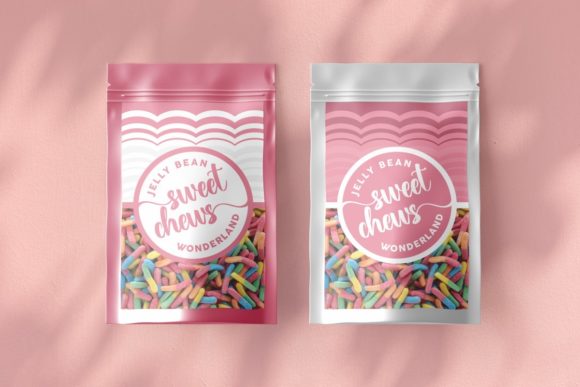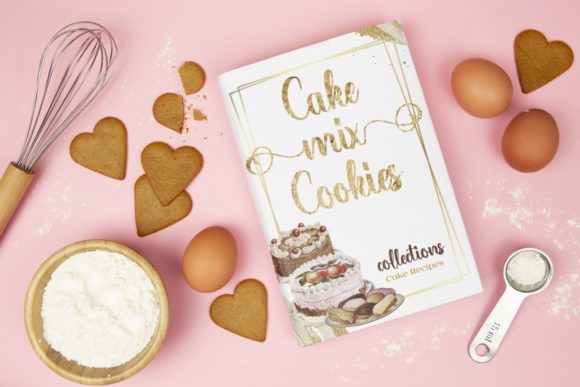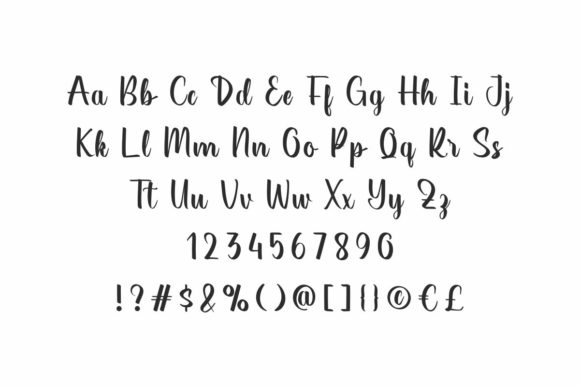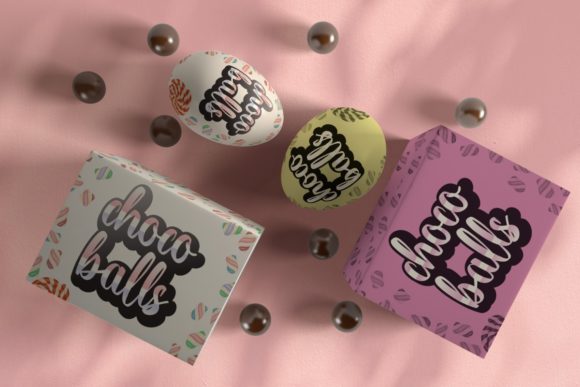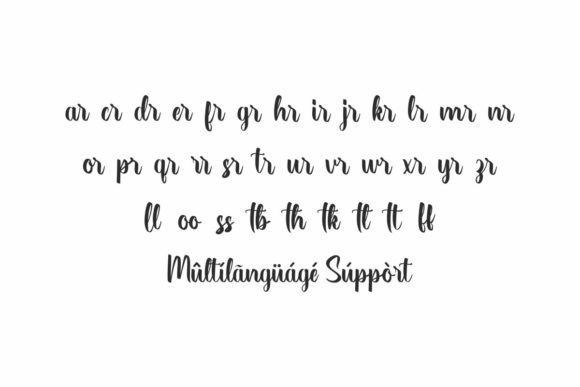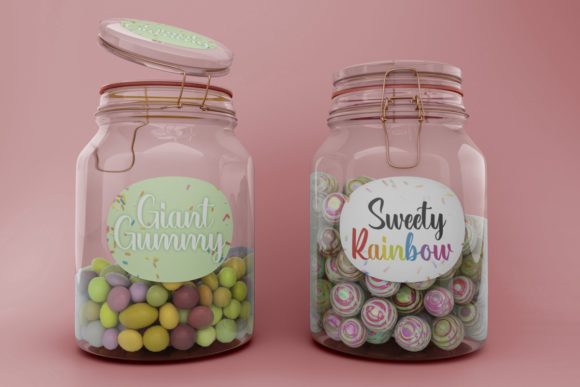
Candy Nougat Font: The Sweetest Addition to Your Design Projects
Are you looking for a font that can add a touch of sweetness and elegance to your design projects? Look no further than the Candy Nougat font! This lovely and well-balanced script font is perfect for a variety of applications, from product packaging and branding projects to magazine covers, social media, and wedding designs.
What Makes Candy Nougat Font So Special?
Candy Nougat font is a beautifully crafted script font that features a unique and elegant design. Its well-balanced letters and smooth curves make it perfect for creating visually appealing text that will capture the attention of your audience. Whether you’re designing a logo, creating a social media post, or working on a wedding invitation, this font is sure to impress.
One of the best things about Candy Nougat font is its versatility. It’s perfect for a wide range of design projects, including:
- Product Packaging: Add a touch of sweetness to your product packaging with Candy Nougat font. Its elegant design and smooth curves make it perfect for labeling products, creating brand identities, and more.
- Branding Projects: Create a lasting impression with Candy Nougat font. Its unique design and well-balanced letters make it perfect for creating logos, business cards, and other branding materials.
- Magazine Covers: Make your magazine cover stand out with Candy Nougat font. Its elegant design and smooth curves make it perfect for creating eye-catching headlines and titles.
- Social Media: Add a touch of elegance to your social media posts with Candy Nougat font. Its unique design and well-balanced letters make it perfect for creating visually appealing text that will capture the attention of your audience.
- Wedding Designs: Make your wedding designs truly special with Candy Nougat font. Its elegant design and smooth curves make it perfect for creating beautiful wedding invitations, programs, and more.
Another great feature of Candy Nougat font is that it’s PUA encoded. This means that you can access all of the glyphs and swashes with ease, giving you even more creative freedom and flexibility. With PUA encoding, you can:
- Access a wide range of glyphs and swashes: With PUA encoding, you can access a wide range of glyphs and swashes, giving you even more creative freedom and flexibility.
- Easily customize your text: PUA encoding makes it easy to customize your text with Candy Nougat font. You can access a wide range of glyphs and swashes, and easily swap them out to create unique and visually appealing text.
Why Designers and Crafters Love Candy Nougat Font
Candy Nougat font has quickly become a favorite among designers and crafters. Here are just a few reasons why:
- Elegant design: Candy Nougat font features an elegant design that’s perfect for creating visually appealing text.
- Versatility: Candy Nougat font is perfect for a wide range of design projects, from product packaging and branding projects to magazine covers, social media, and wedding designs.
- Easy to use: Candy Nougat font is easy to use, even for those who are new to design. Its PUA encoding makes it easy to access a wide range of glyphs and swashes, and its smooth curves and well-balanced letters make it perfect for creating visually appealing text.
If you’re looking for a font that can add a touch of sweetness and elegance to your design projects, look no further than Candy Nougat font. Its elegant design, versatility, and ease of use make it perfect for a wide range of applications. Whether you’re a designer, crafter, or simply someone who loves to create, Candy Nougat font is sure to become a favorite in your collection.